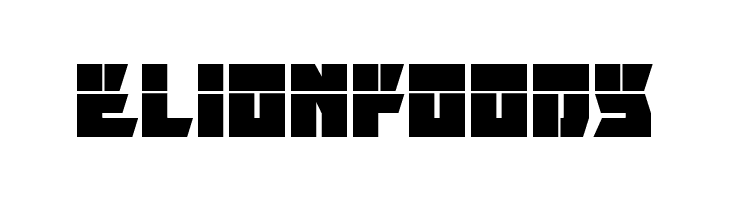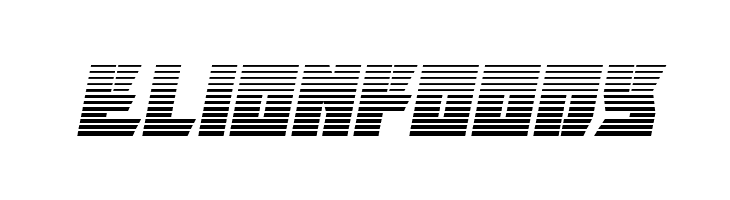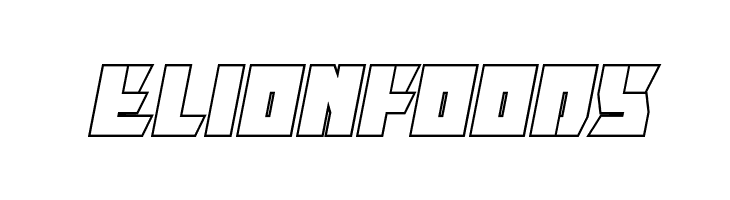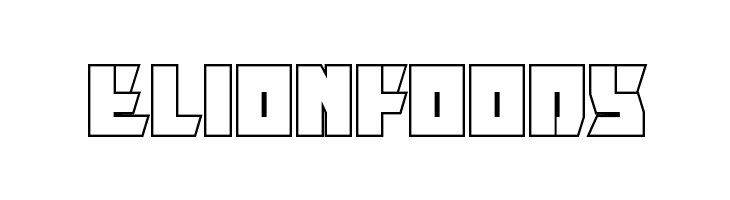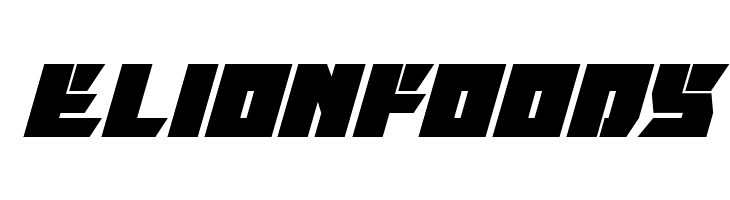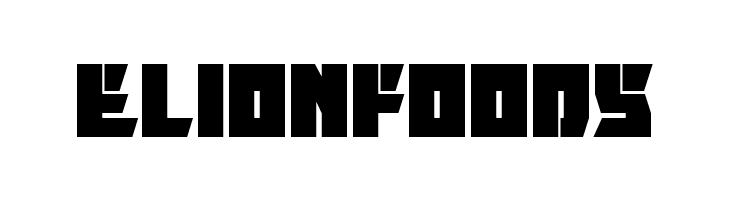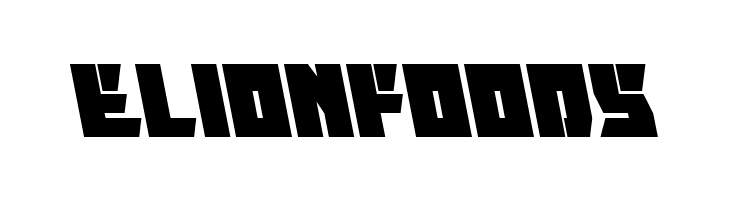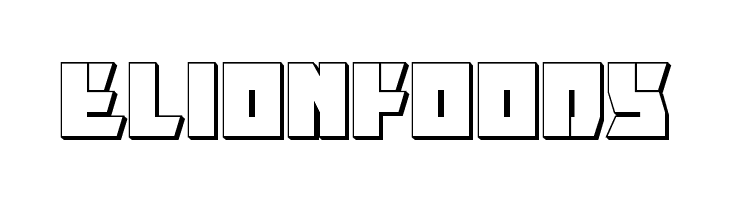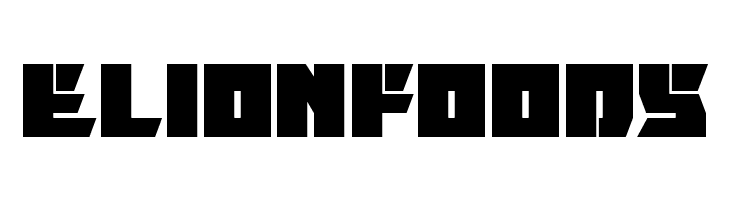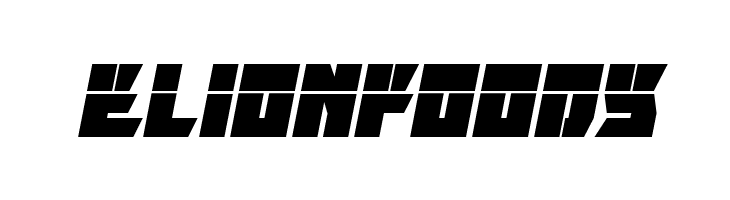
Furiosa Font
A bold, angular font with a futuristic and industrial style.
Furiosa 3D Font
A bold, 3D geometric font with a futuristic and impactful design.
Furiosa Halftone Italic Font
A bold, italicized font with a futuristic halftone effect.
Furiosa Laser Super-Italic Font
A bold, angular, and futuristic italic font with a sci-fi aesthetic.
Furiosa Expanded Super-Italic Font
A bold, angular, and italic font with a futuristic and dynamic style.
Furiosa Condensed Italic Font
A bold, angular, and condensed italic font with a modern, aggressive style.
Furiosa Gradient Font
A bold, futuristic font with a gradient effect created by horizontal lines.
Furiosa Expanded Font
A bold, angular font with a geometric and expanded design.
Furiosa Italic Font
A bold, angular, and italicized font with a dynamic and geometric style.
Furiosa Leftalic Font
A bold, angular font with a futuristic and aggressive style.
Furiosa Condensed Font
A bold, angular, and condensed font with a modern and edgy style.
Furiosa Semi-Italic Font
A bold, angular, semi-italic font with a futuristic and edgy design.
Furiosa 3D Italic Font
A bold, 3D italic font with a futuristic and dynamic style.
Furiosa Laser Italic Font
A bold, angular, and futuristic font with a dynamic italic slant.
Furiosa Super-Italic Font
A bold, angular font with a dynamic, slanted style.
Furiosa Expanded Italic Font
A bold, angular, expanded italic font with a futuristic and dynamic style.
Furiosa Laser Font
Furiosa Outline Font
A bold, geometric outline font with a futuristic and dynamic style.
Furiosa Outline Italic Font
A bold, angular outline font with an italicized, futuristic style.
Furiosa Halftone Font